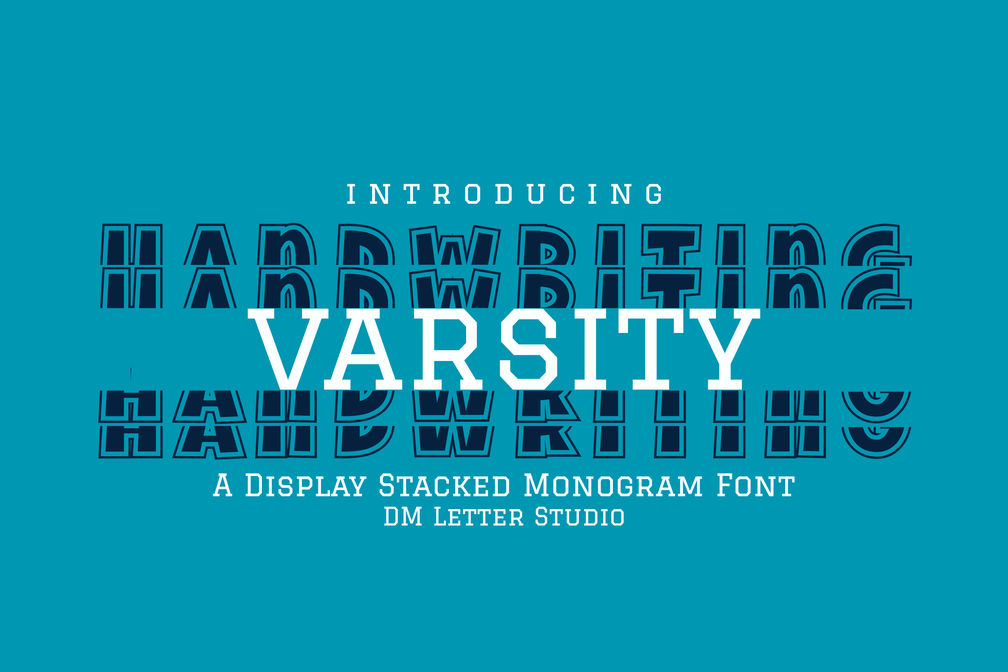
Handwriting Varsity Stacked Monogram
Handwriting Varsity Stacked Monogram – Quirky & Bold School-Inspired Monogram Font
Handwriting Varsity Stacked Monogram is a unique font that blends the confidence of varsity lettering with a playful handwritten touch, arranged in a stacked monogram style. It’s perfect for personalizing school gear, class projects, sports team logos, spirit wear, teacher resources, and youthful branding. This font delivers both personality and boldness, ideal for monogram-focused designs that need to stand out.
• Playful Varsity Monogram Look: Combines classic collegiate style with handwritten charm in a stacked monogram format.
• Perfect for Customization: Great for initials, name-based designs, class decor, yearbook titles, and personalized gifts.
• Creative & Bold Aesthetic: A fun twist on traditional varsity fonts with an informal yet strong visual appeal.